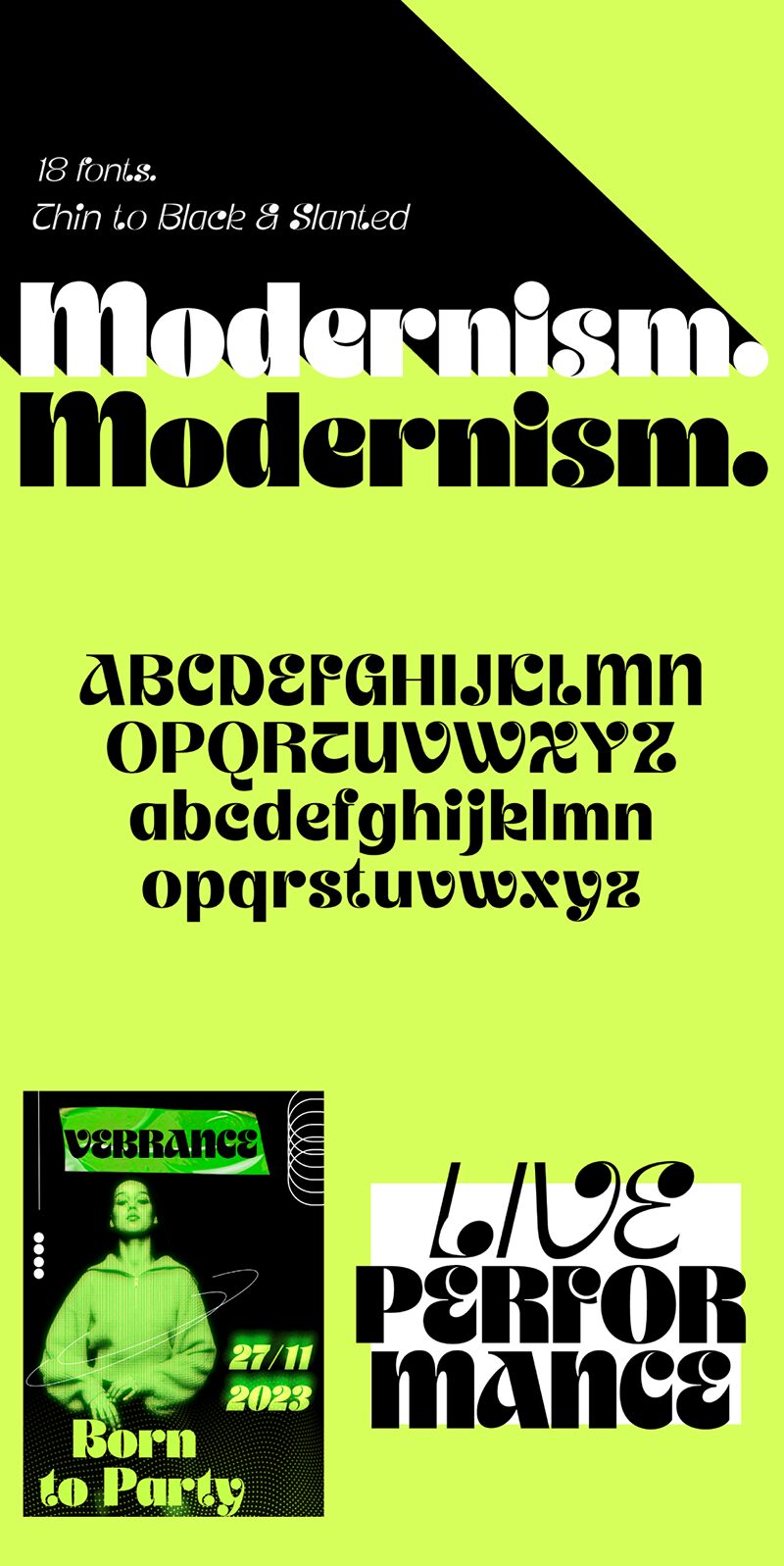
Jt Modernism font by Jolicia Type Foundry is a free font that combines conceptual modern design with an expressive touch. The curvy composition and dynamic style of the font give an impression that is both surprising and appealing to the observer. Its specialty is undoubtedly the futuristic geometric design of the font that reaches complexity while remaining simplistic at the same time.
The font is suitable for plenty of various design projects. Whether it is about advertising, packaging design, magazine covers, all sorts of print projects, branding, logo design, social media promotion, or personal use – it certainly won’t disappoint. Add it to your favorite editing or design software and get experimenting right away!
JT Modernism is a cutting-edge font that seamlessly blends a funky aesthetic with a modern twist. Boasting a total of 18 weights, ranging from the delicately Thin to the boldly commanding Black, this font offers a versatile spectrum of options to suit any design project. Its unique design elements make it an ideal choice for various creative applications, ensuring your work stands out and leaves a lasting impression.